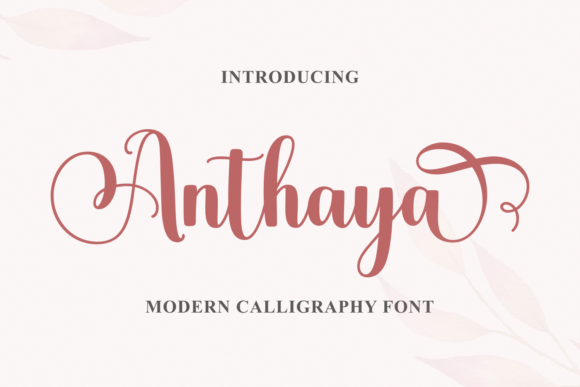
Discover the Charm of Anthaya Font: Elevate Your Designs with a Sweet Handwritten Style
Are you tired of using the same old fonts in your designs? Look no further than Anthaya Font, a beautiful handwritten font that combines classic calligraphic influences with a modern and fresh feel. In this article, we’ll dive into the world of Anthaya Font and explore its features, benefits, and uses, helping you to fall in love with it and take your projects to the highest levels!
What is Anthaya Font?
Anthaya Font is a sweet handwritten font that boasts a unique blend of traditional calligraphy and contemporary design elements. Its elegant and flowing lines make it perfect for a wide range of design applications, from wedding invitations and branding materials to social media graphics and more. With Anthaya Font, you can add a touch of sophistication and whimsy to your designs, setting them apart from the crowd.
Key Features of Anthaya Font
- Handwritten style: Anthaya Font features a beautiful, handwritten style that adds a personal touch to your designs.
- Classy calligraphic influences: The font’s classic calligraphic influences give it an air of sophistication and elegance.
- Contemporary and fresh: Despite its traditional roots, Anthaya Font feels modern and fresh, making it perfect for designers who want to stay on-trend.
- Versatile: Anthaya Font can be used for a wide range of design applications, from digital projects to print materials.
Benefits of Using Anthaya Font
So why should you choose Anthaya Font for your designs? Here are just a few benefits of using this beautiful font:
- Adds a personal touch: Anthaya Font’s handwritten style adds a personal touch to your designs, making them feel more approachable and relatable.
- Elevates your brand: With its classic calligraphic influences and modern feel, Anthaya Font can help elevate your brand and make it stand out from the competition.
- Easy to read: Despite its elegant and flowing lines, Anthaya Font is easy to read, making it perfect for body text and other applications where legibility is key.
- Customizable: Anthaya Font can be customized to fit your design needs, allowing you to adjust the lettering, spacing, and more to create a unique look.
Uses for Anthaya Font
Anthaya Font is a versatile font that can be used for a wide range of design applications, including:
- Wedding invitations and stationery: Anthaya Font’s elegant and flowing lines make it perfect for wedding invitations, save-the-dates, and other stationery.
- Branding and packaging: With its classic calligraphic influences and modern feel, Anthaya Font is a great choice for branding and packaging design.
- Social media graphics: Anthaya Font can add a touch of sophistication and whimsy to your social media graphics, helping you to stand out in a crowded feed.
- Blog and website design: Anthaya Font can be used for body text, headings, and other design elements on blogs and websites.
Tips for Using Anthaya Font
Here are a few tips for getting the most out of Anthaya Font:
- Use it sparingly: Anthaya Font is a beautiful font, but it can be overwhelming if used too much. Use it sparingly to add a touch of elegance and whimsy to your designs.
- Experiment with different colors: Anthaya Font looks great in a variety of colors, from bold and bright to soft and pastel.
- Pair it with other fonts: Anthaya Font can be paired with other fonts to create a unique and interesting design.
| Author | kammaqsum |
In conclusion, Anthaya Font is a beautiful and versatile font that can add a touch of elegance and whimsy to your designs. With its classic calligraphic influences and modern feel, it’s perfect for a wide range of design applications, from wedding invitations and branding materials to social media graphics and more. Whether you’re a designer, crafter, or DIY enthusiast, Anthaya Font is sure to become a favorite in your design arsenal.
So why not give Anthaya Font a try? Fall in love with its sweet handwritten style and bring your projects to the highest levels!